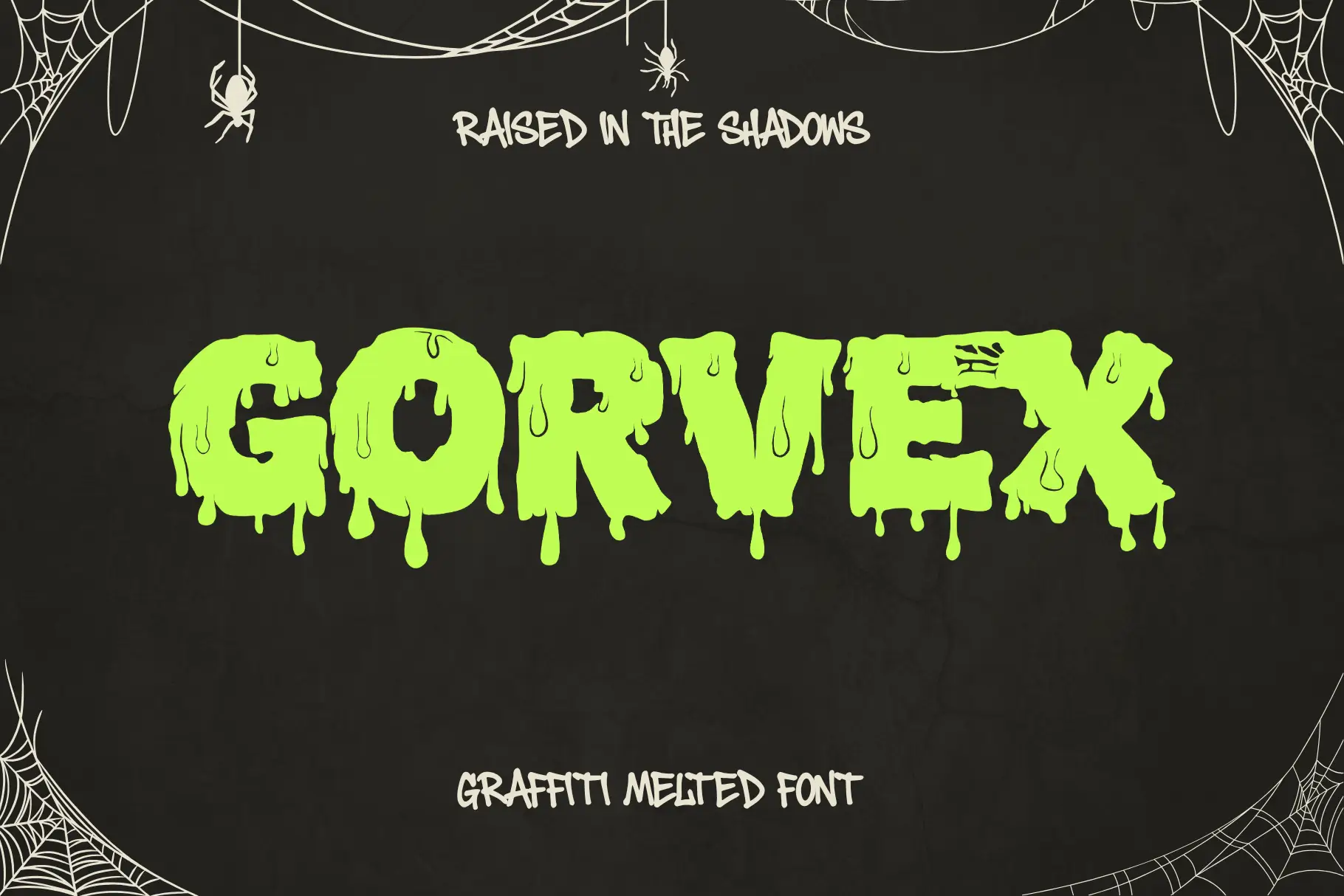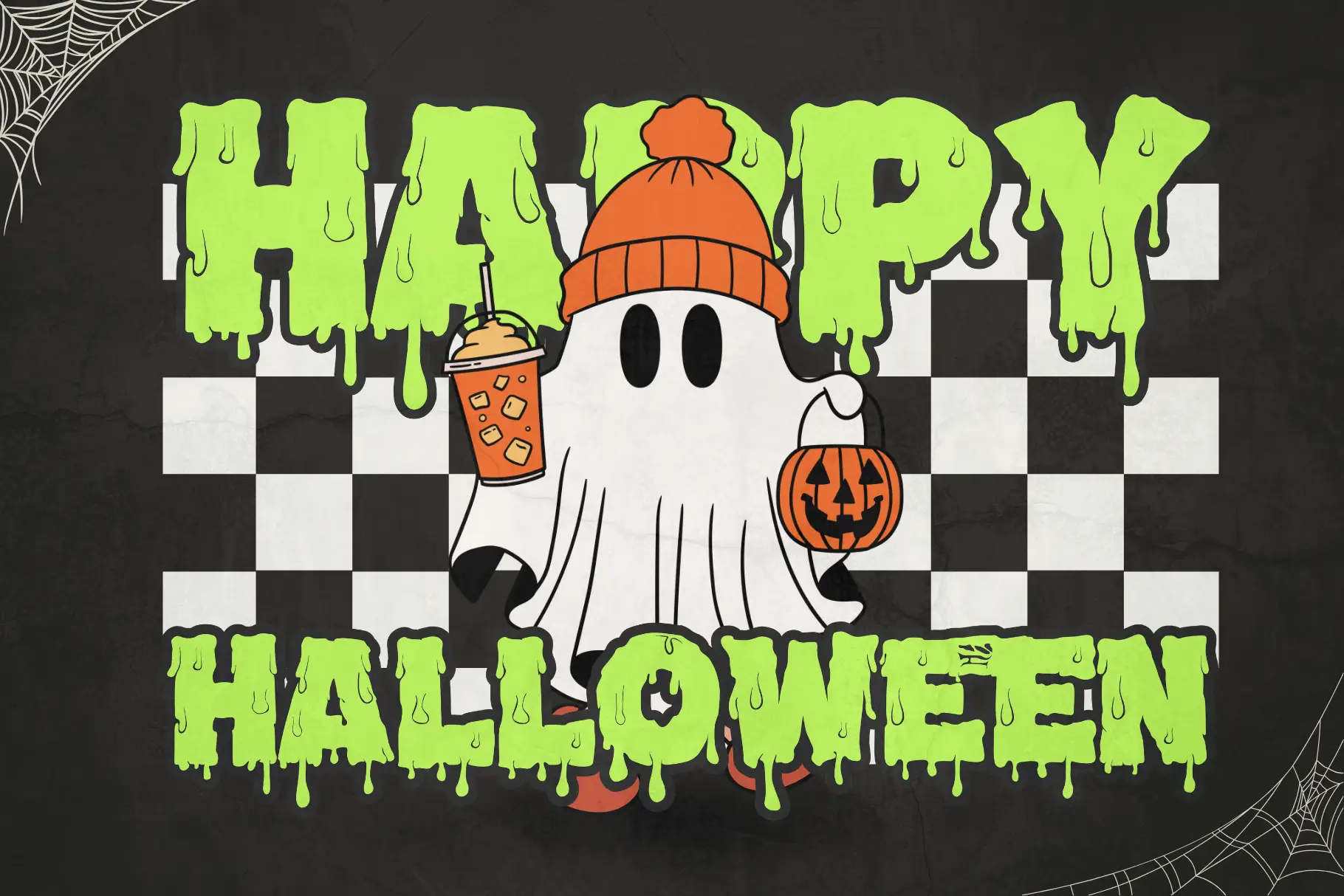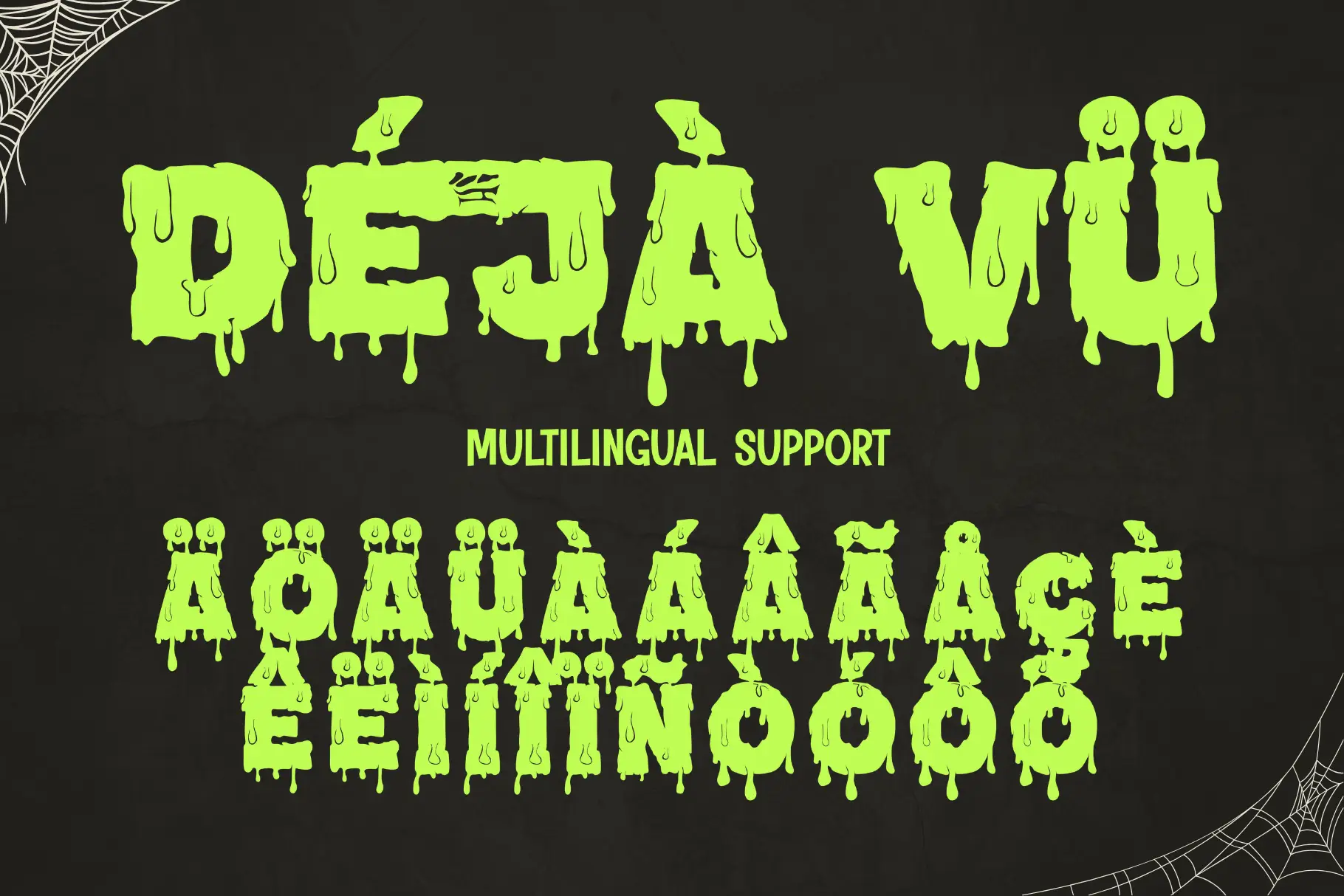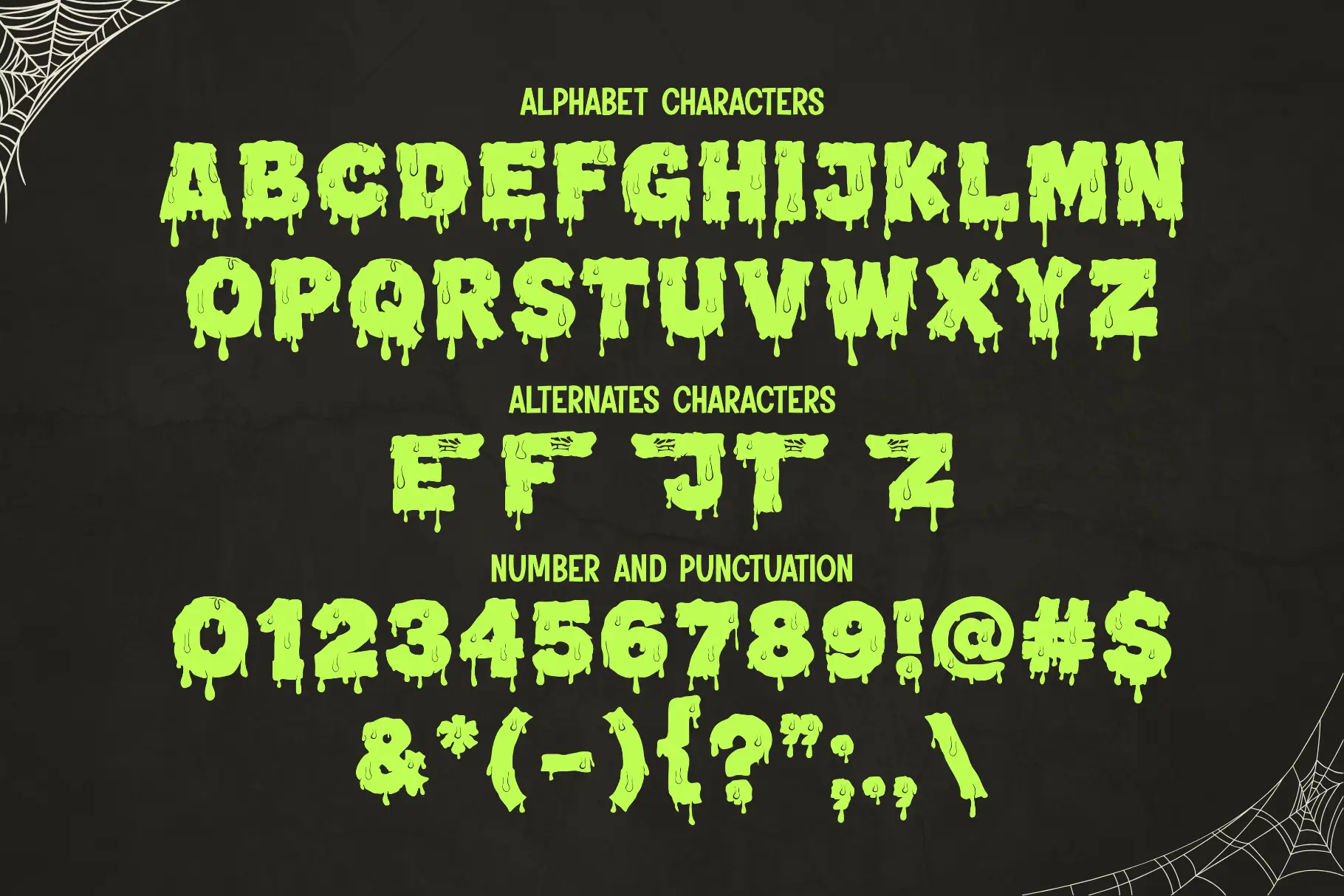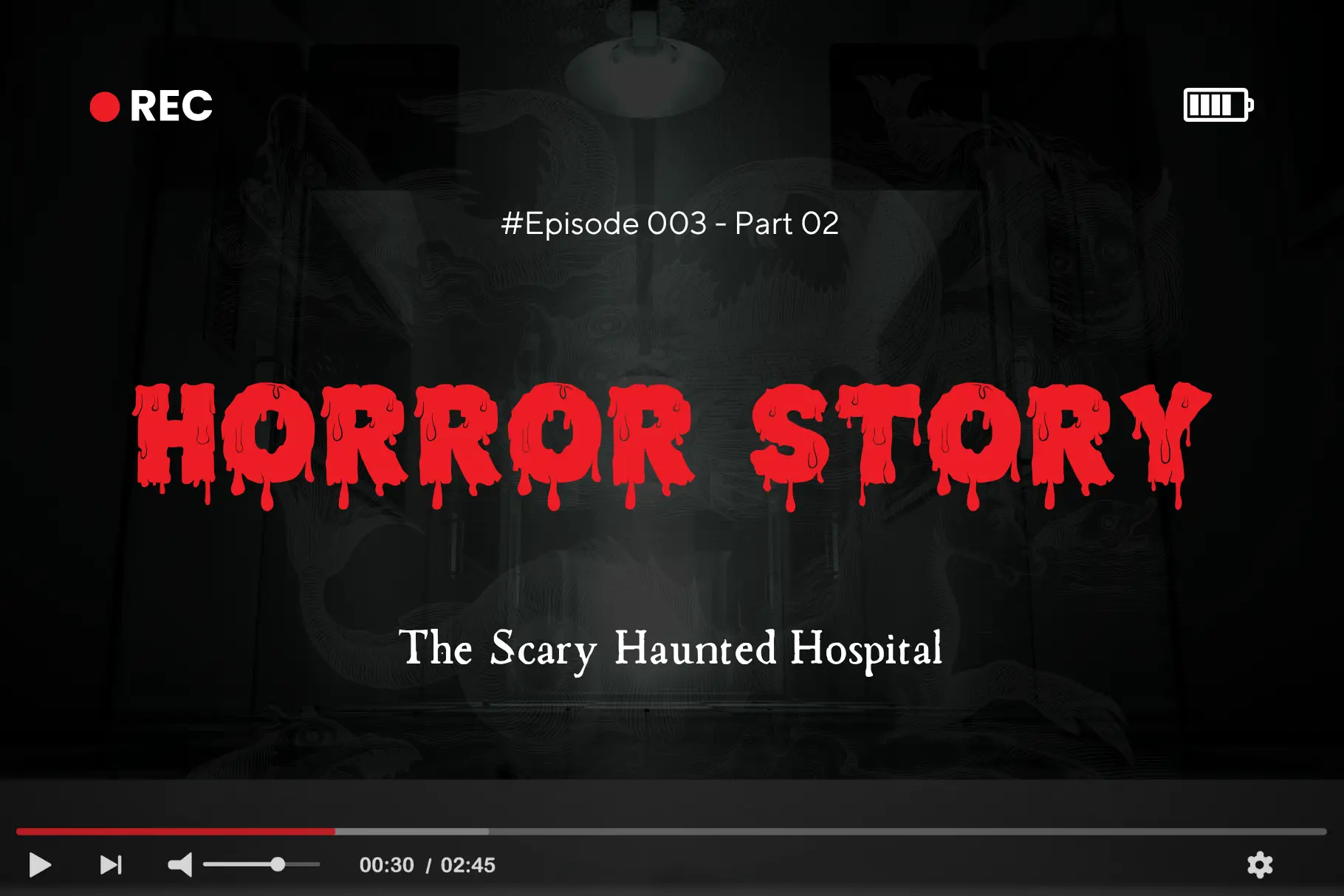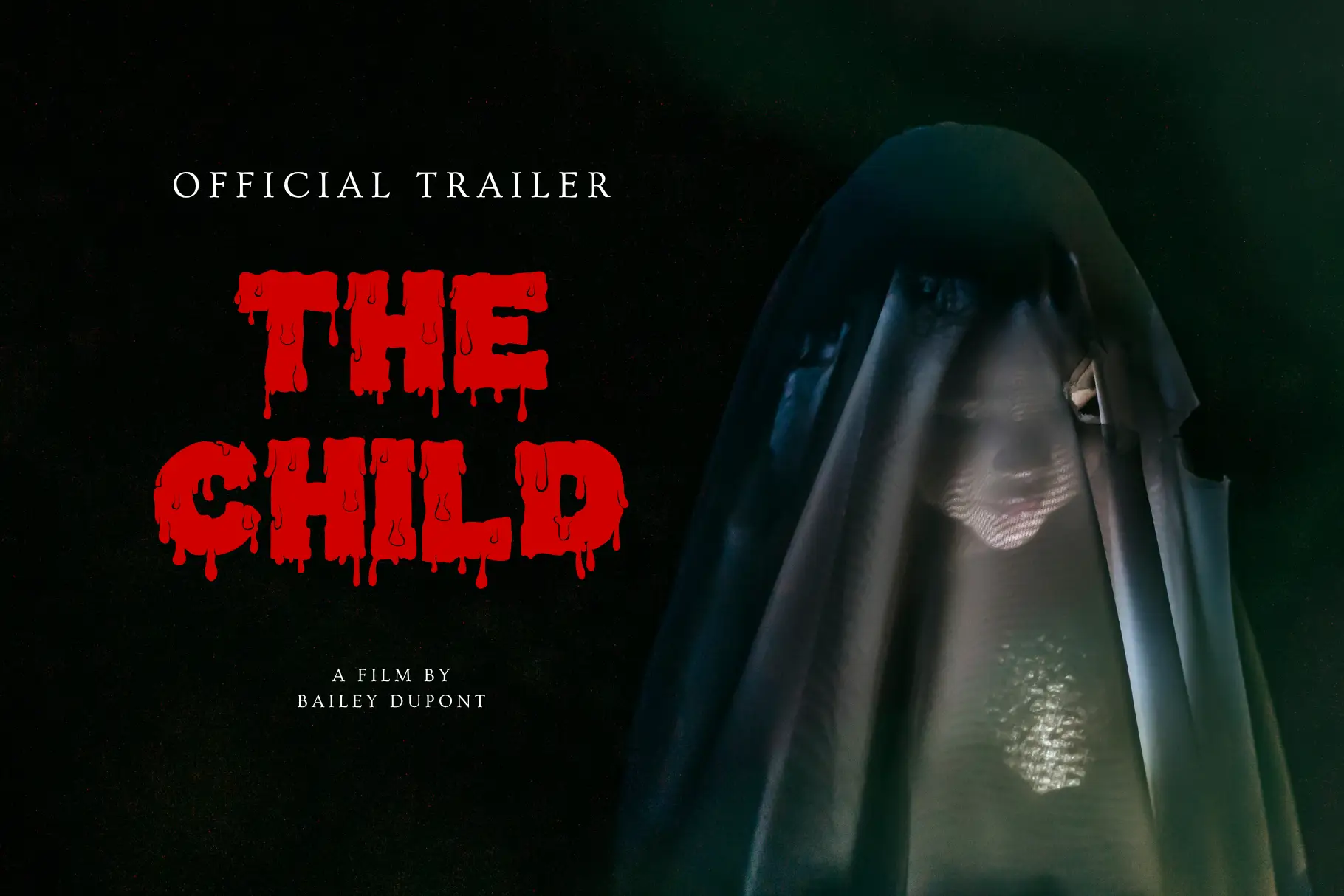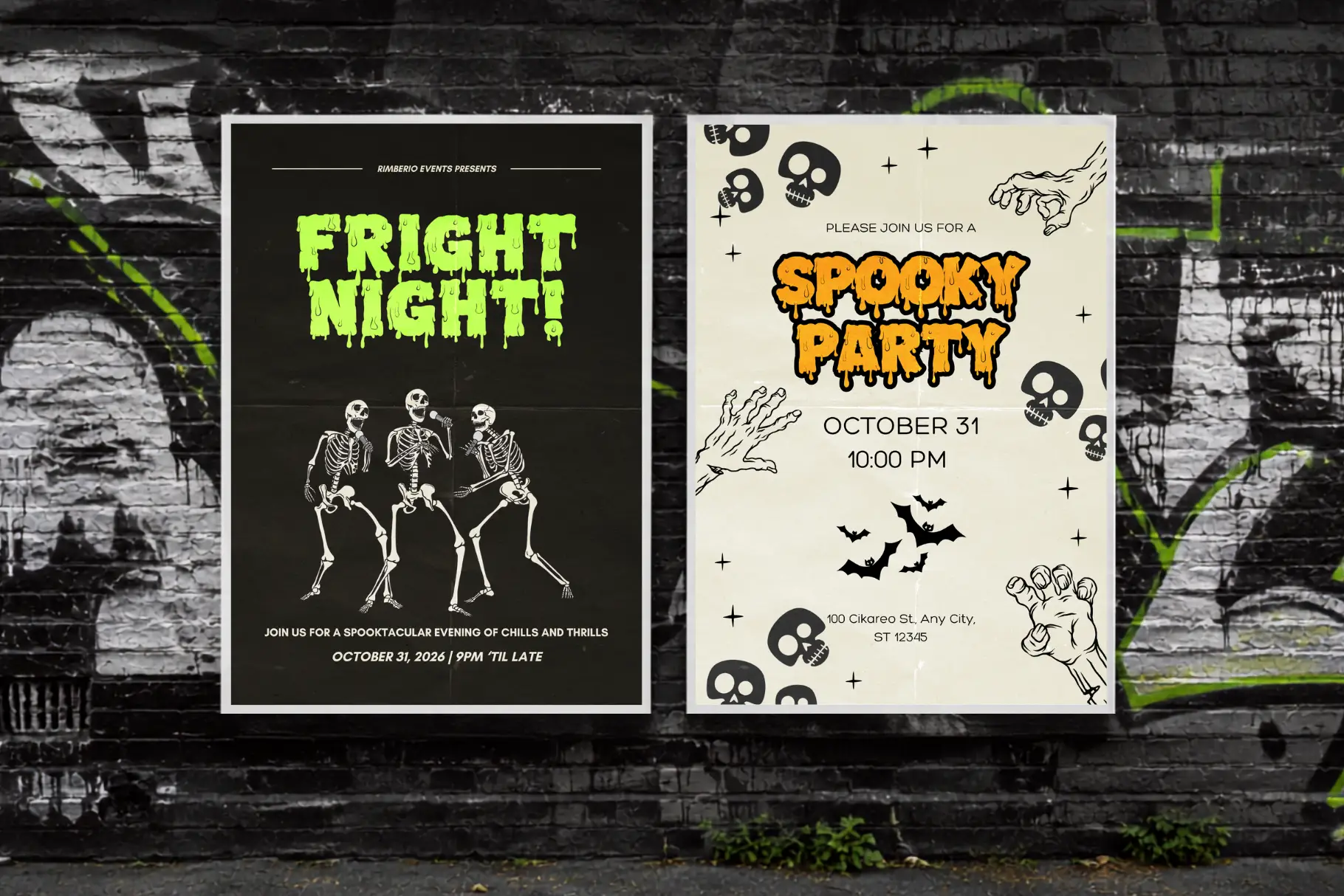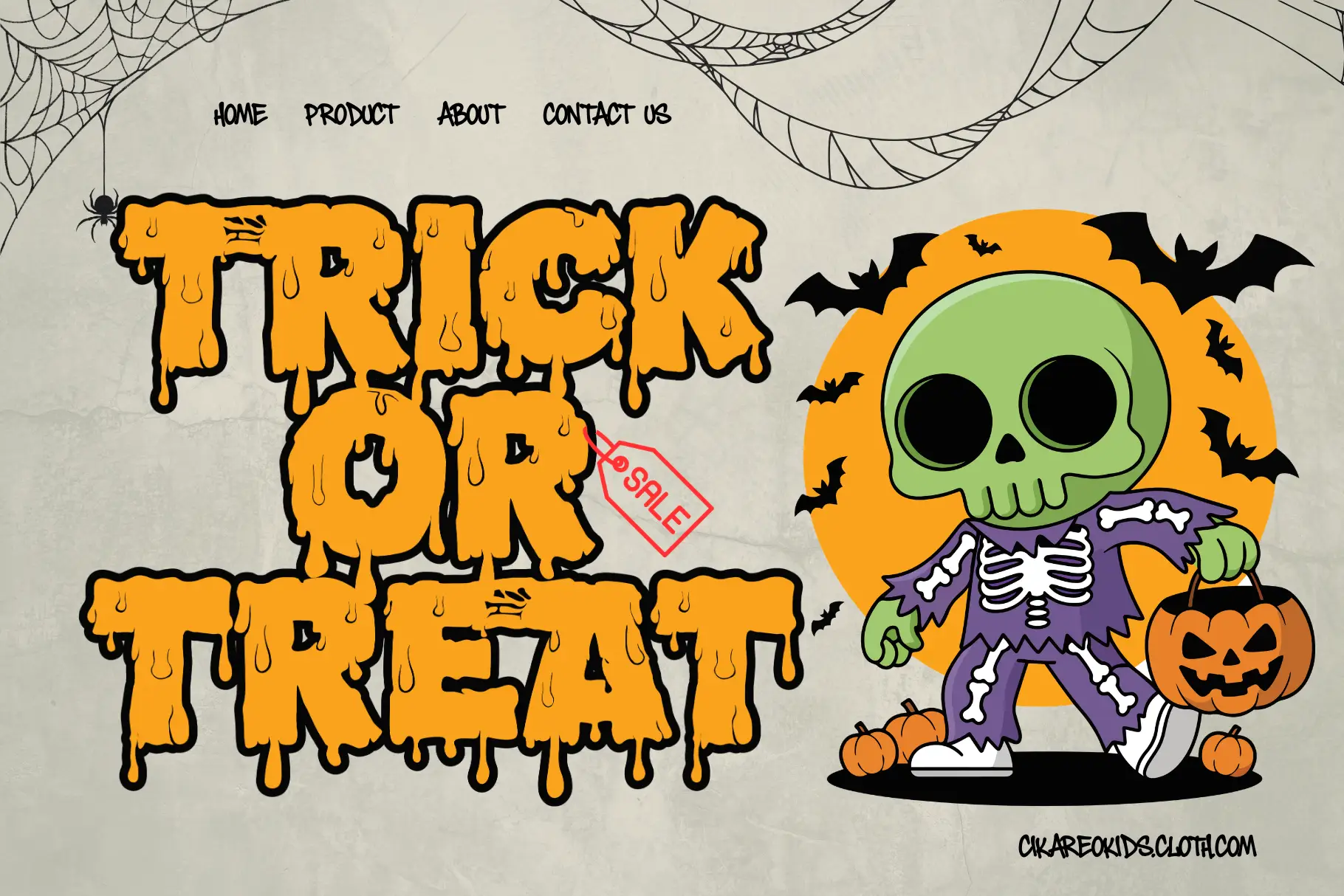
About Gorvex
Gorvex is a unique Halloween graffiti font created for designers who want to combine spooky aesthetics, melting typography, decorative lettering, and modern street art energy. Inspired by creepy Halloween artwork, dripping lettering, dark urban graphics, and expressive graffiti culture, Gorvex brings a distinctive horror-inspired personality to every design. This melting graffiti font is perfect for Halloween posters, spooky branding, apparel graphics, social media artwork, horror-themed merchandise, event promotions, and creative typography projects.
The distinctive melting structure of Gorvex gives this Halloween font an instantly recognizable appearance. Its decorative letterforms create the visual impression of letters slowly melting, dripping, and transforming, making it ideal for designs that require a creepy yet fashionable atmosphere. The combination of melting typography and graffiti style gives Gorvex a contemporary urban character that works beautifully for streetwear, music artwork, Halloween campaigns, and alternative fashion branding.
Gorvex is more than a traditional Halloween typeface. This decorative graffiti font combines spooky visual language with bold street-inspired typography, giving designers a flexible tool for creating memorable artwork. Whether you are designing a haunted house poster, Halloween party flyer, horror merchandise, dark streetwear collection, or social media campaign, Gorvex provides the strong visual identity needed to capture attention.
The bold shapes and melting details make this spooky graffiti font particularly effective when used as a headline or display typeface. Large typography allows the dripping and melting characteristics to become a central part of the composition, creating a dramatic visual effect without requiring complicated graphic elements. Gorvex can therefore become the hero element of a Halloween design while still leaving enough space for supporting illustrations, textures, characters, or decorative artwork.
Melting Halloween Graffiti Style
Gorvex features a distinctive melting Halloween graffiti style inspired by dripping paint, creepy lettering, spooky street art, and dark urban aesthetics. The melting details create an unusual and memorable appearance that immediately communicates Halloween and horror-inspired themes.
Decorative Letterforms
This decorative Halloween font includes expressive letterforms designed to add personality and visual movement to typography compositions. The decorative structure makes Gorvex suitable for logos, headlines, posters, apparel, packaging, stickers, and promotional graphics.
Uppercase Characters
Gorvex includes uppercase characters designed for bold display typography. The uppercase structure makes the font especially effective for large Halloween headlines, horror titles, streetwear graphics, event names, and promotional artwork.
Multilingual Support
This multilingual Halloween graffiti font supports multiple languages, allowing designers to create Halloween campaigns, branding projects, merchandise, and promotional graphics for international audiences.
Number and Punctuation
Gorvex includes numbers and punctuation to provide greater flexibility for complete typography compositions. Designers can create dates, event information, titles, slogans, product names, and promotional messages without needing to combine multiple typefaces.
Stylistic Alternates
Gorvex includes stylistic alternates that give designers additional creative possibilities when building custom Halloween typography. Alternate characters can help create variation, improve visual rhythm, and produce more personalized lettering compositions.
Why Designers Love Gorvex
Distinctive Melting Typography
Designers love Gorvex because the melting typography style instantly creates a recognizable visual identity. The dripping and melting details make ordinary words feel more expressive and atmospheric, making the font especially valuable for Halloween and horror-themed designs.
Perfect for Halloween Branding
Gorvex is an excellent Halloween branding font for seasonal campaigns, Halloween parties, haunted attractions, spooky product collections, horror events, and themed merchandise. Its decorative structure allows brands to create a consistent visual identity across posters, social media, packaging, and promotional materials.
Great for Streetwear
The combination of Halloween aesthetics and graffiti typography makes Gorvex particularly suitable for Halloween streetwear design. Use it for T-shirts, hoodies, caps, stickers, posters, and alternative fashion graphics that require a darker urban personality.
Excellent for Horror Artwork
This horror graffiti font works beautifully with creepy illustrations, monsters, haunted houses, skulls, ghosts, pumpkins, bats, and other Halloween imagery. Its melting appearance naturally complements dark and supernatural visual themes.